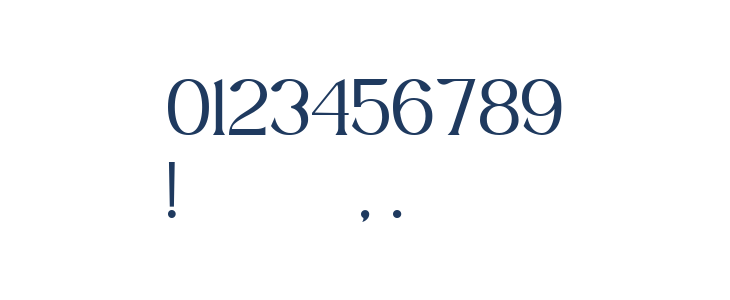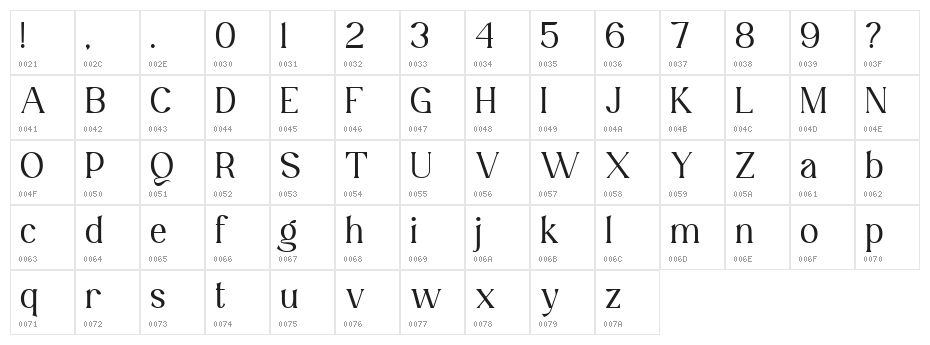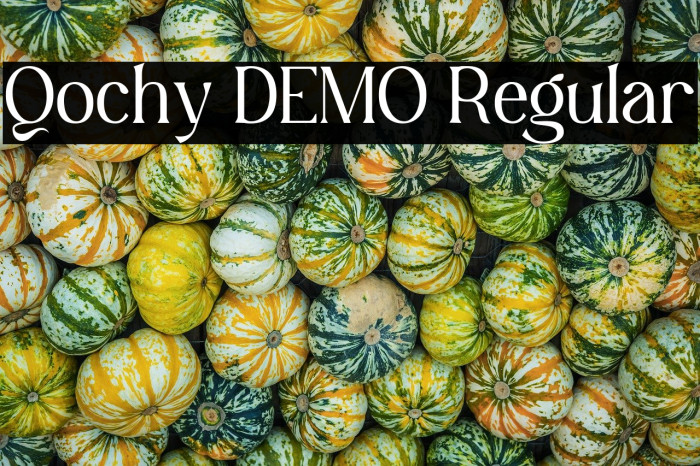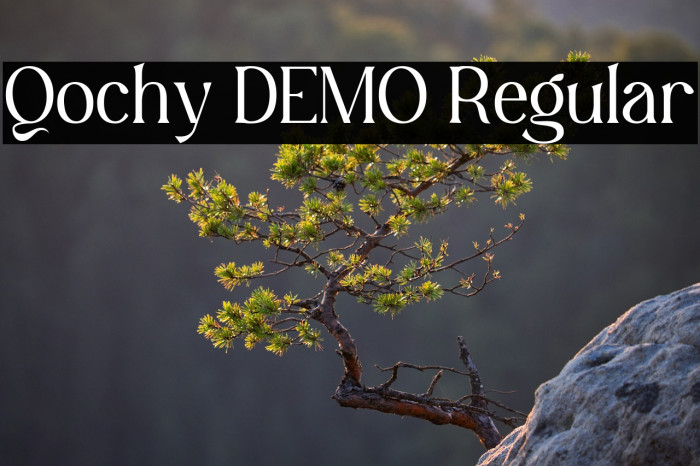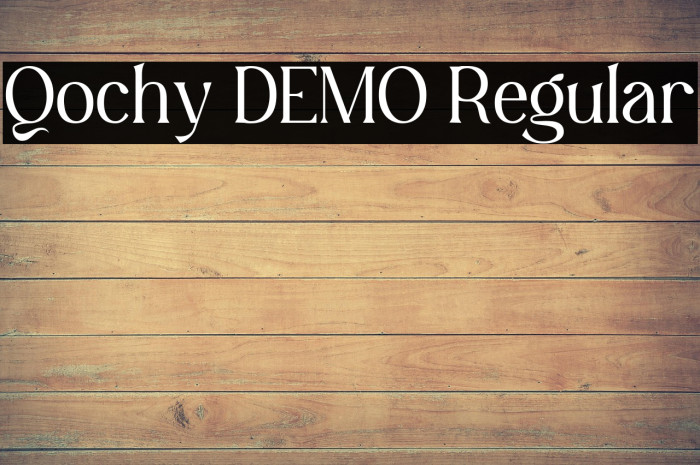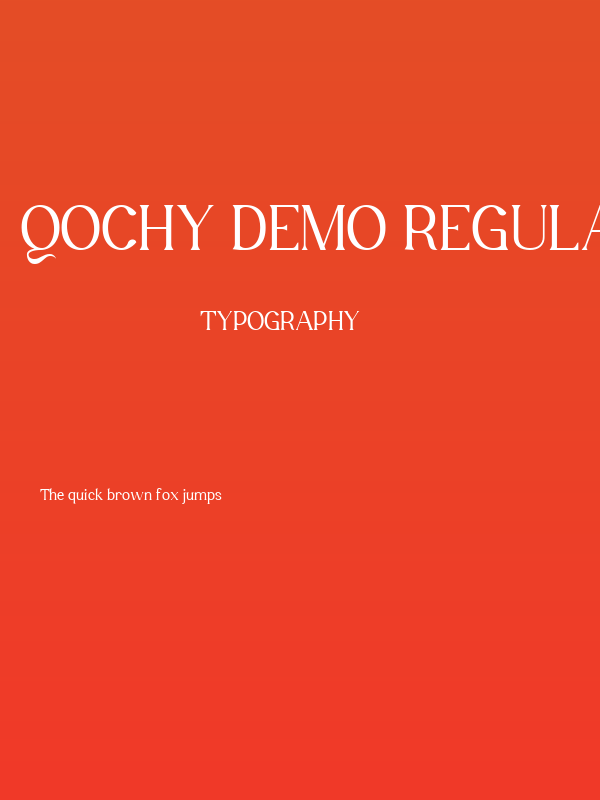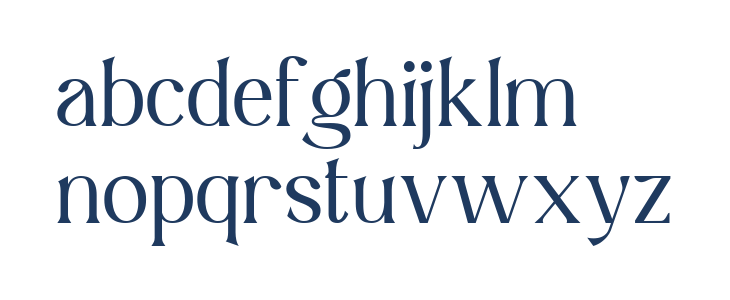
Qochy DEMO Regular Font
Qochy DEMO Regular Description
This font exhibits a classic serif style with elegant curves and a refined appearance. The uppercase letters are bold and stately, while the lowercase letters maintain a graceful flow, making it suitable for both formal and creative applications. The numerals are clear and distinct, ensuring readability. The special characters are designed with a touch of sophistication, enhancing the overall aesthetic. This font balances traditional serif elements with a modern twist, making it versatile for various design needs.
| Proposed Projects | Ideal for book covers, editorial design, branding, and formal invitations. |